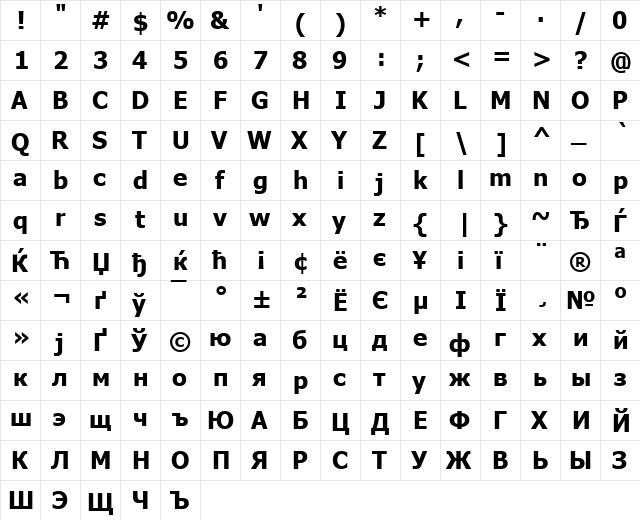
Tahoma KOI8 Bold
Design Context for Tahoma KOI8 Typeface
Tahoma KOI8 is a composed and adaptable typeface that performs quietly and consistently across a wide range of design contexts. Its bold stroke weight gives it real presence on the page.